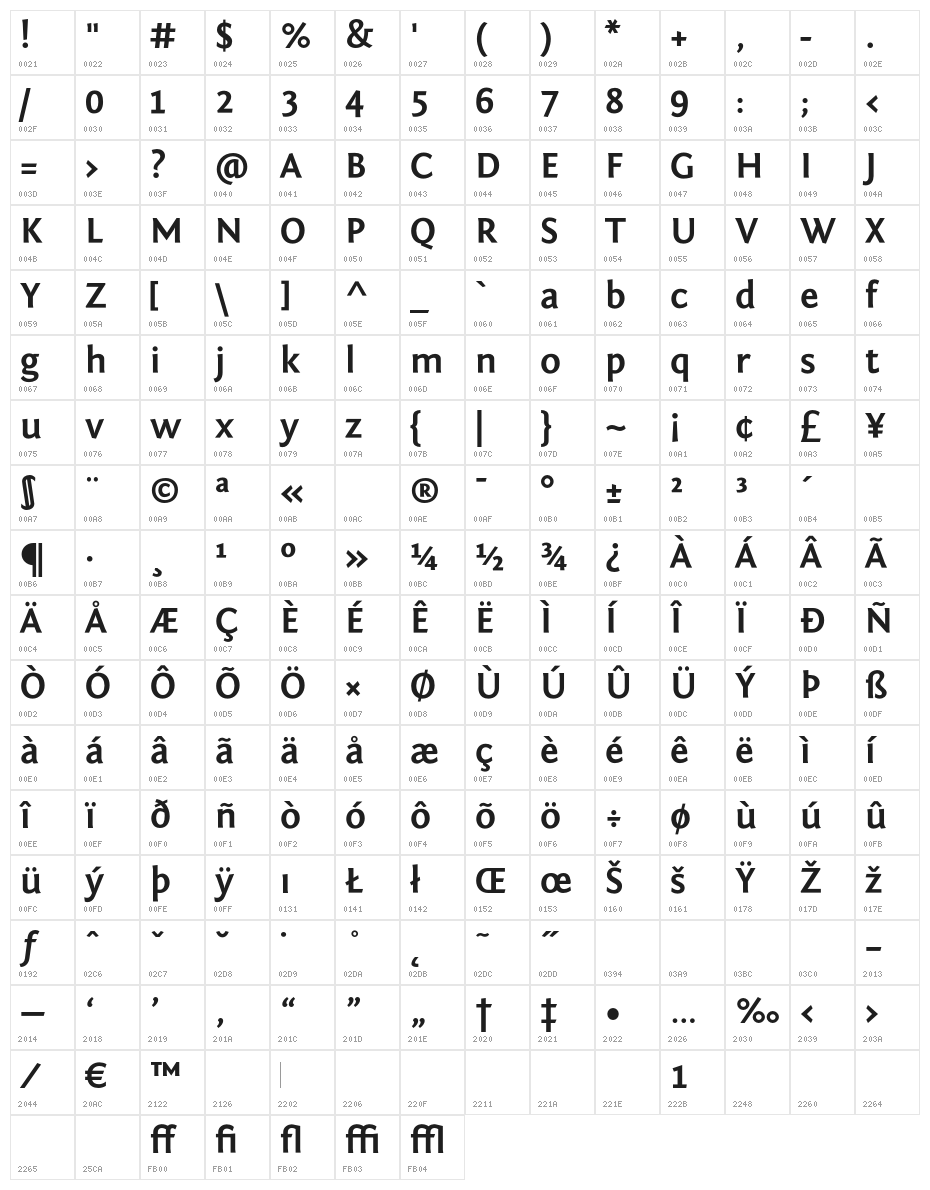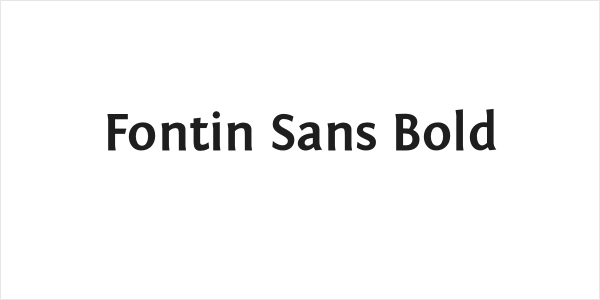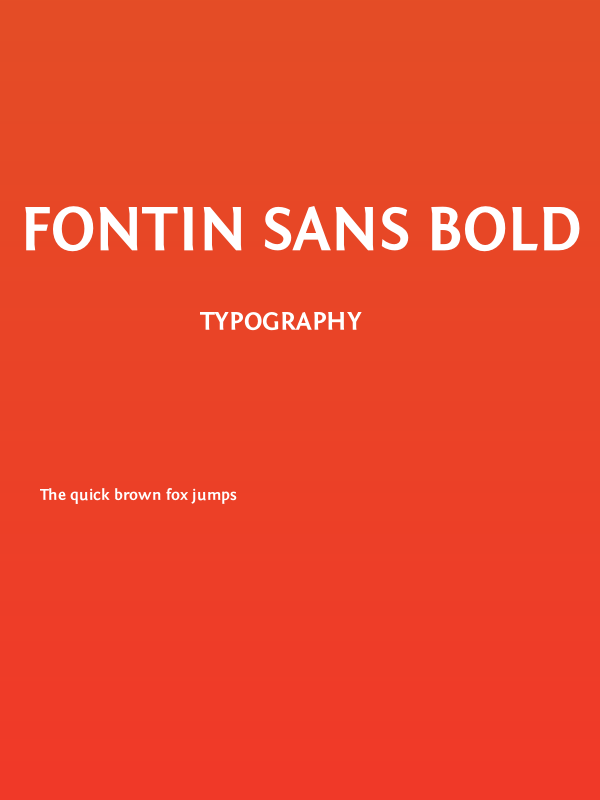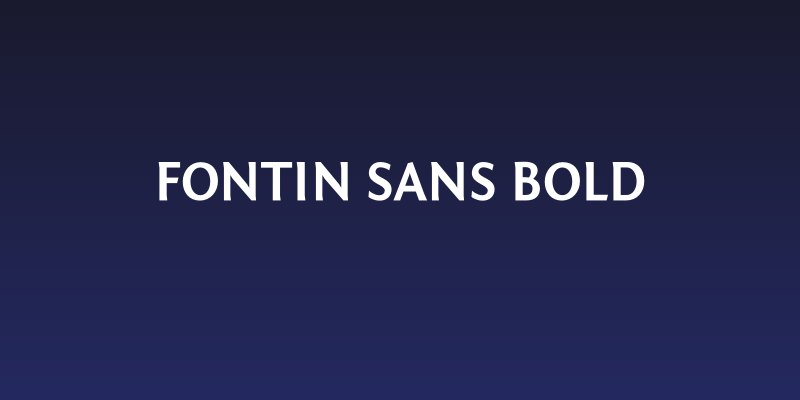
Fontin Sans Bold Font
Fontin Sans Bold Description
This font features a clean and modern sans-serif style, characterized by its bold weight and strong presence. The letters are well-proportioned with a consistent stroke width, offering a balanced and harmonious appearance. The uppercase characters are slightly taller than average, providing a commanding look, while the lowercase letters maintain a smooth and approachable feel. The numerals are clear and distinct, ensuring readability. Special characters are designed with precision, complementing the overall aesthetic. This font is versatile, suitable for both digital and print media.
| Use Case | Headlines, Logos, Digital Interfaces |
| Proposed Projects | Ideal for branding, advertising, headlines, and digital interfaces. |